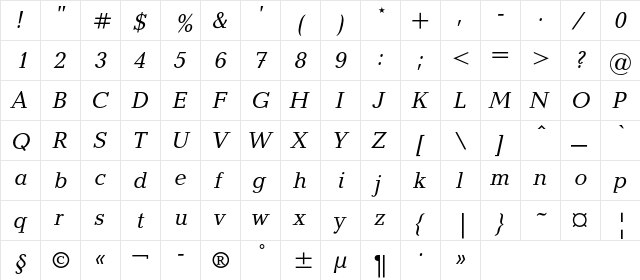
BalticaC Italic
Design Context for BalticaC Typeface
BalticaC is a composed and adaptable typeface that performs quietly and consistently across a wide range of design contexts. The dynamic lean of this cut emphasises speed and emphasis in any layout.
Pro Tip: Use BalticaC for emphasis, pull quotes, and subheadings where its slanted energy can add rhythm to the layout.